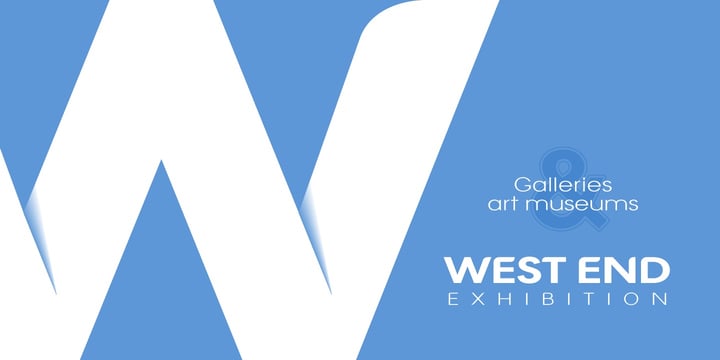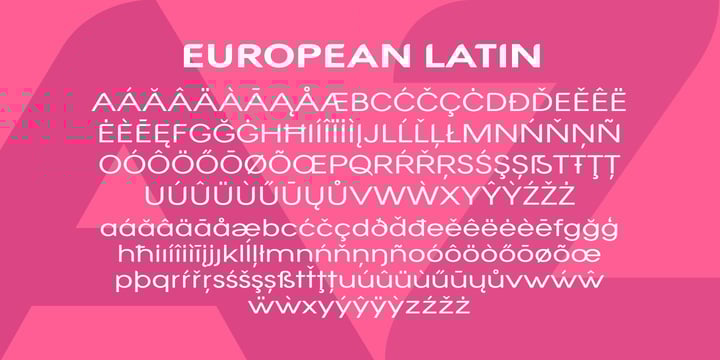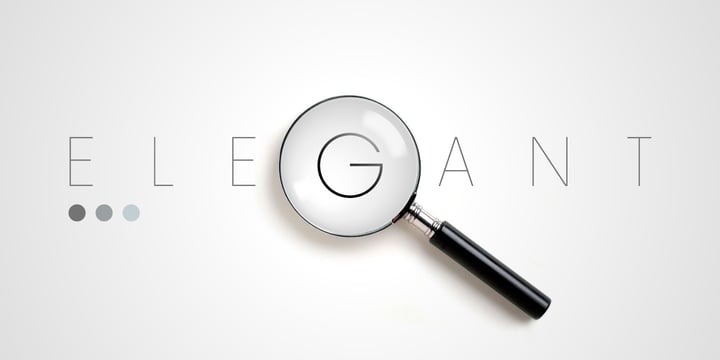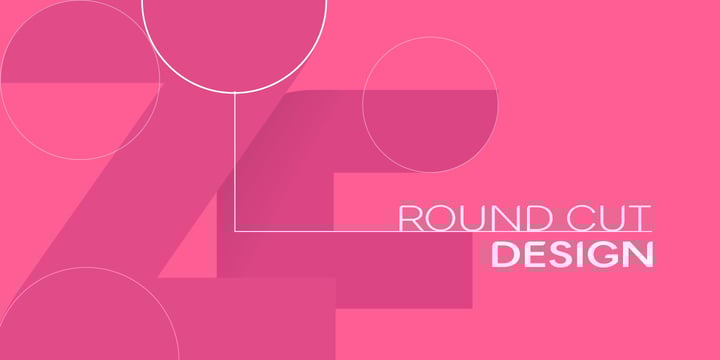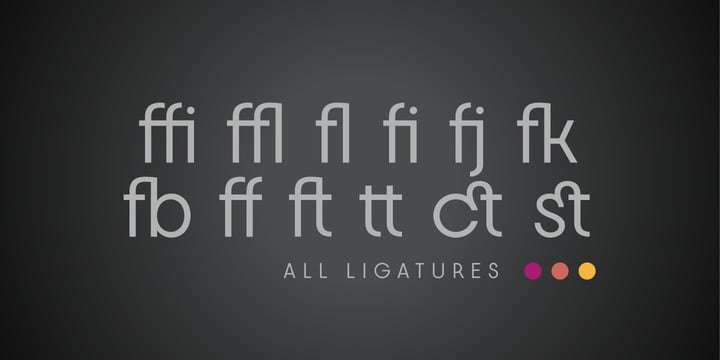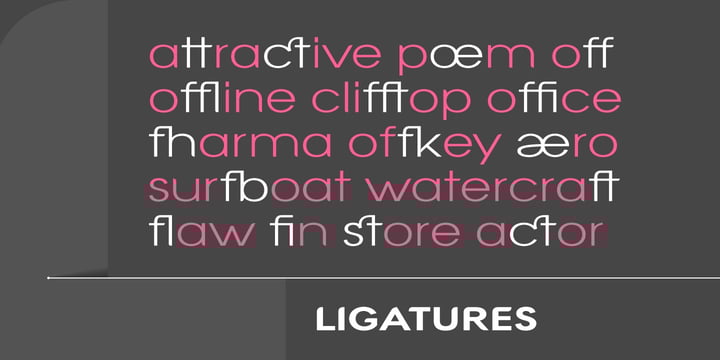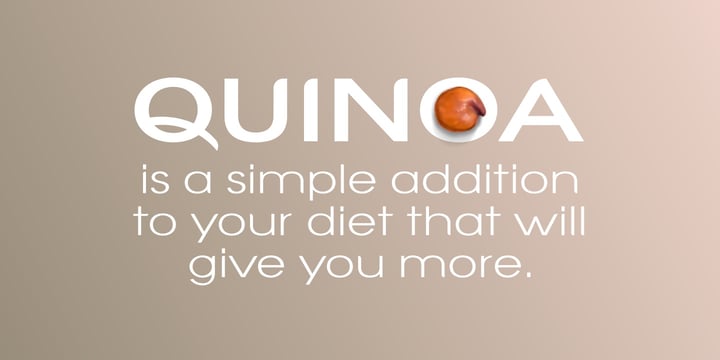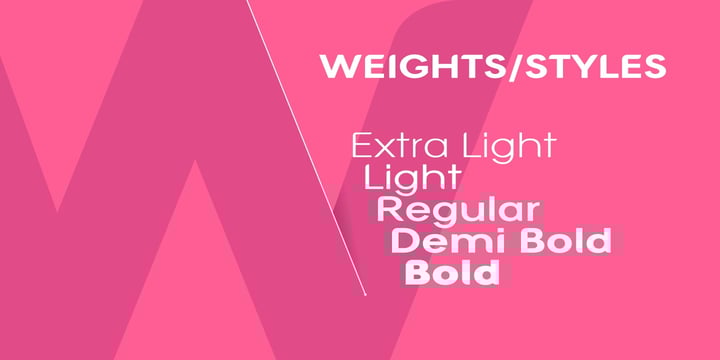
Contempo Type Bundle
Contempo Type Bundle features a curated selection of sans-serif fonts that embody modern elegance and timeless simplicity. Each typeface offers refined shapes, balanced proportions, and versatile functionality—perfect for creating polished, contemporary designs that will never feel dated.
From branding and packaging to web and editorial projects, this collection provides reliable, stylish fonts that adapt beautifully to any context. Contempo Type Bundle is your go-to set for clean, sophisticated typography that endures trends.